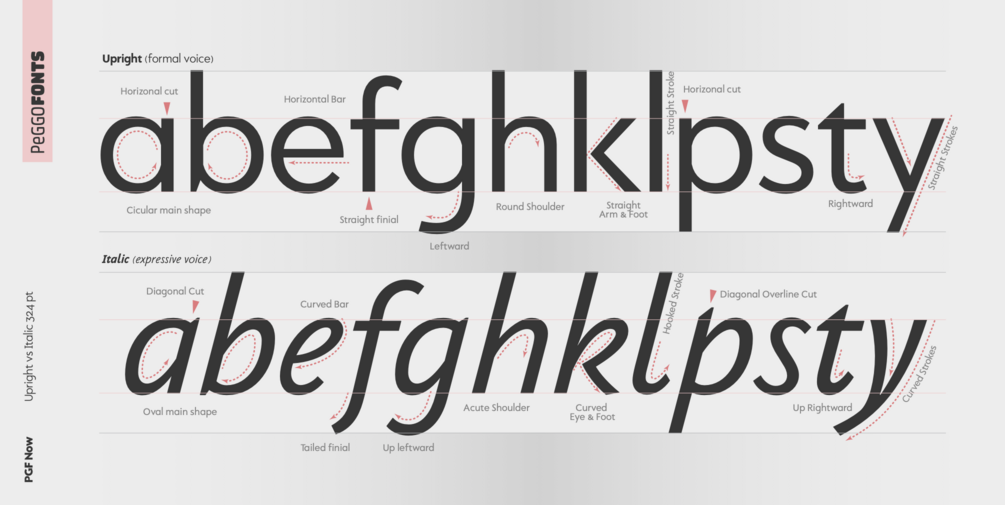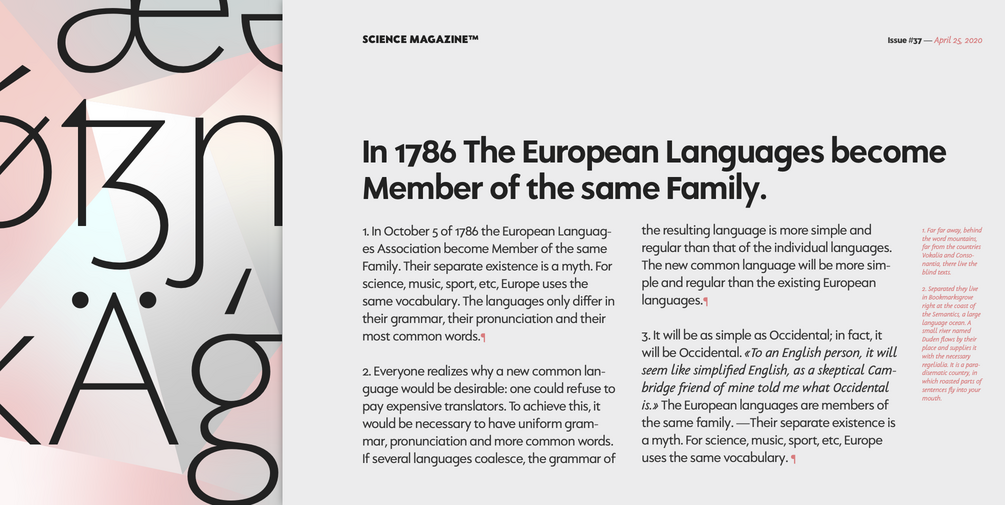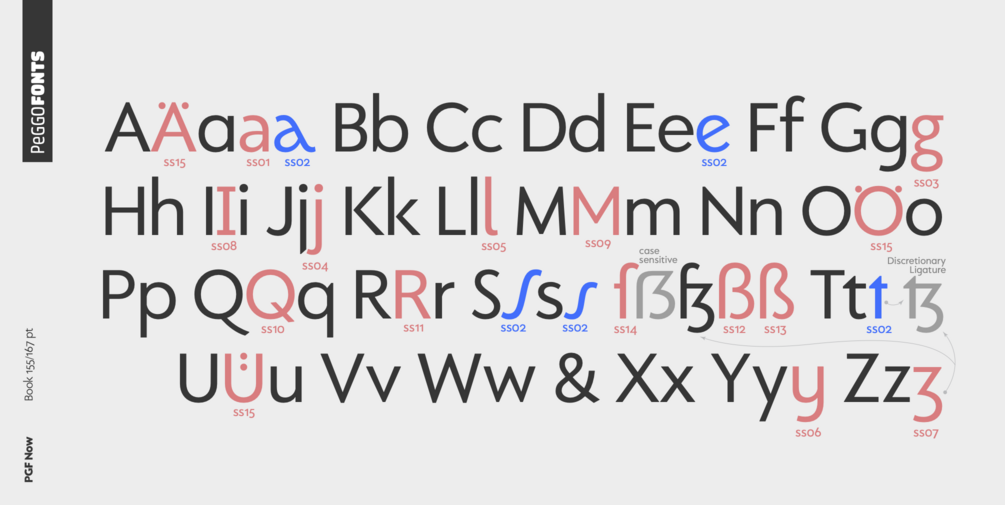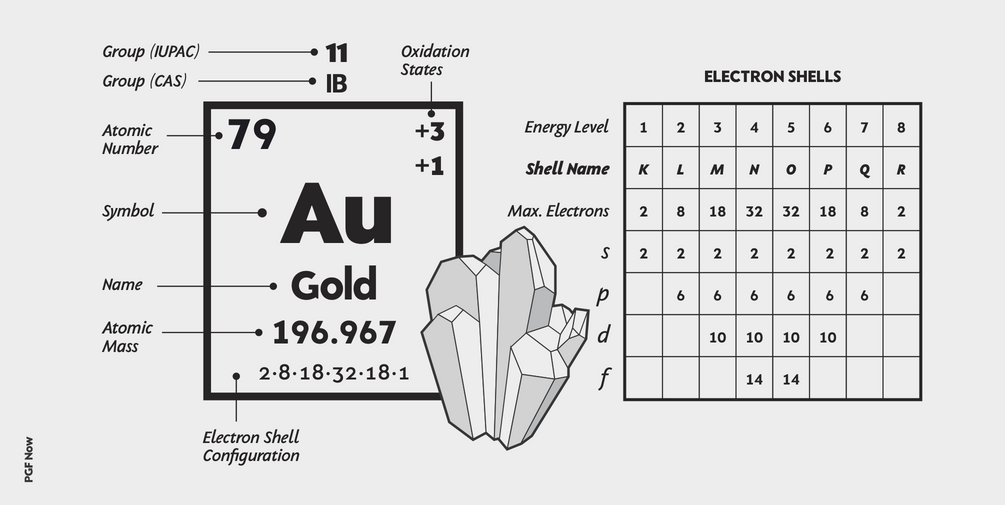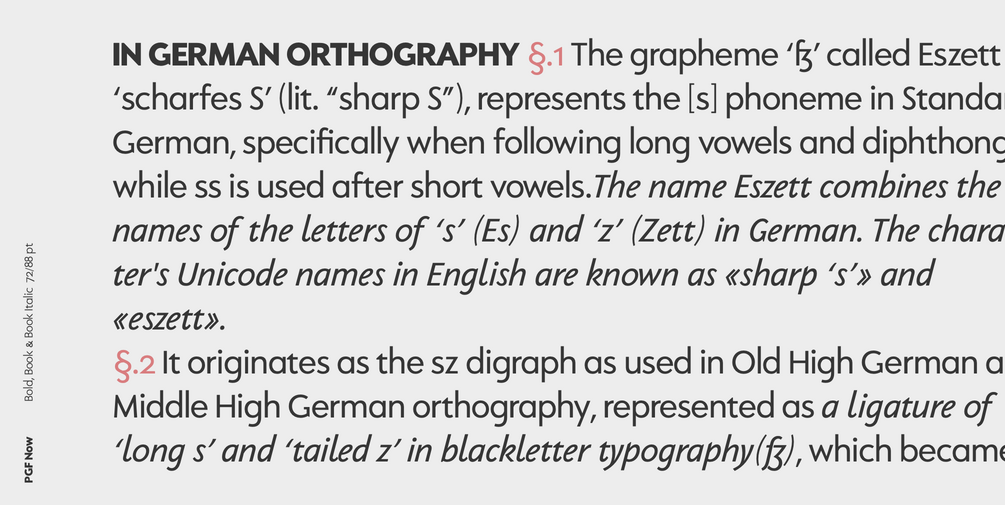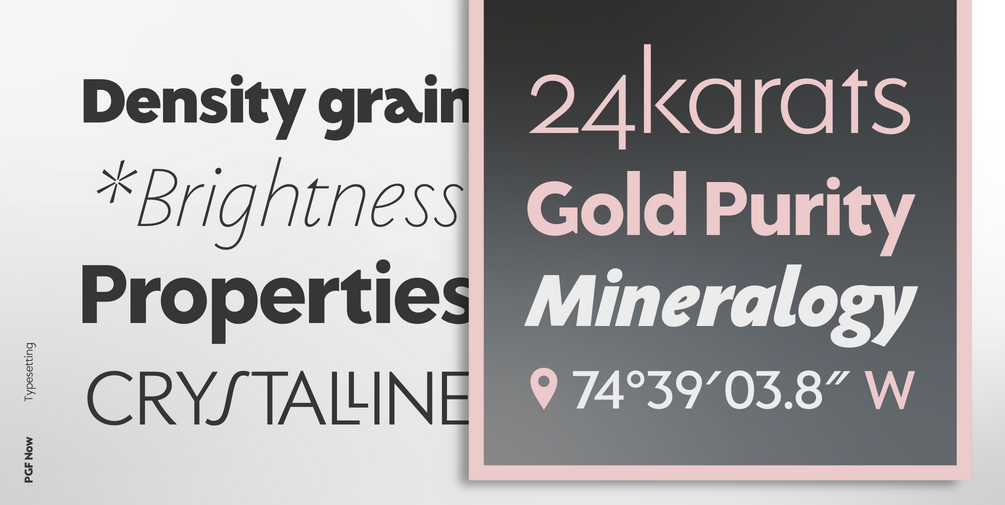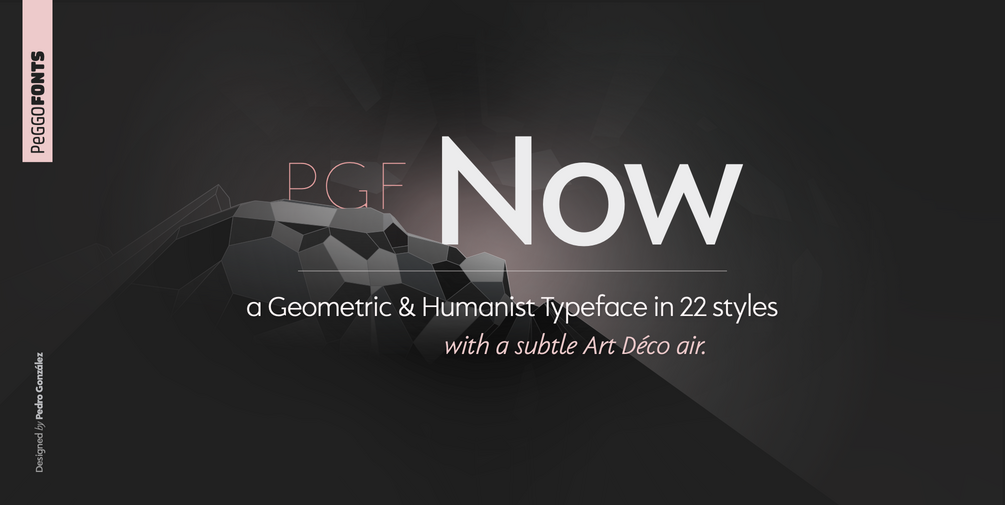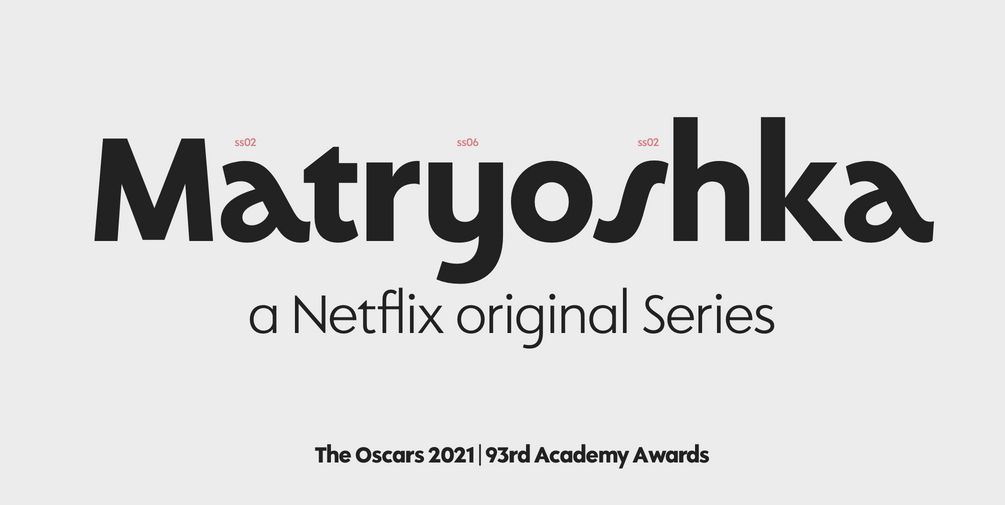
PGF Now
"PGF Now" is a Geometric Sans with Humanistic proportions typeface (Roman a.k.a. ‘Capitalis Monumentalis’), Inspired on vintage minimalism, with a subtle Art Déco air, where the configuration of the basic and open shape (long ascenders/descenders and a moderate ‘x’ height) star a crisp and luminous look, manufactured under an analytical and handmade process as used to be in ancient times.
Among its graphic virtues are a special focus on relaxed and fluid reading rhythm while looking clear and sophisticated, an upright version representing a formal voice paired with an Italic with a more expressive vocal tone, easily distinguished as a second quoted content in Editorial and Branding communicational contexts.
Equipped with generous stylistic options controlled by OpenType features as:
• 17 glyphs variations stored as stylistic sets
• Standard and Discretionary Ligatures
• Lining and Old Style Numeral forms
• Tabular forms
• Superior and Inferior Scientific Numeric Notation
• Numerators and Denominators for fractional compositions
• Pre-Composed Fractions, ordinals
• Dotted Zero for alphanumeric contexts
• Circled numbers
• An Art Déco style Border Set
• Bullets set for multiple levels ordered list
• Arrow set
• Monetary Symbols
• Mathematical Operators
• Publishing and Social Media Markers
• Wide range of Diacritics allowing you to set contents in more than 200 Latin base languages.
With no hesitation, PGF Now is a highly valuable publishing and Branding tool that deserves to flaunt in the more elegant contexts but also daily situations that need a clear and modern voice.